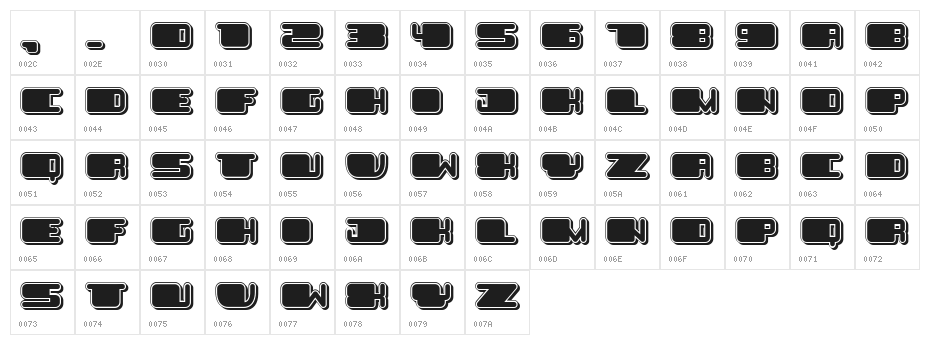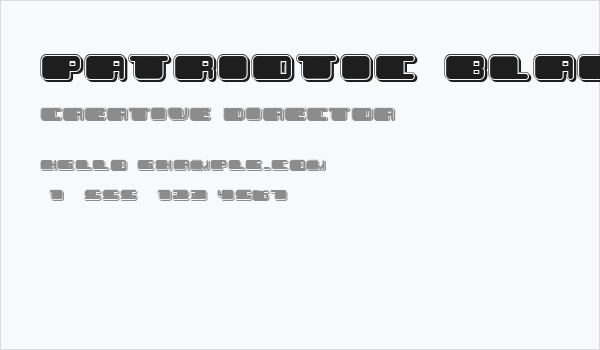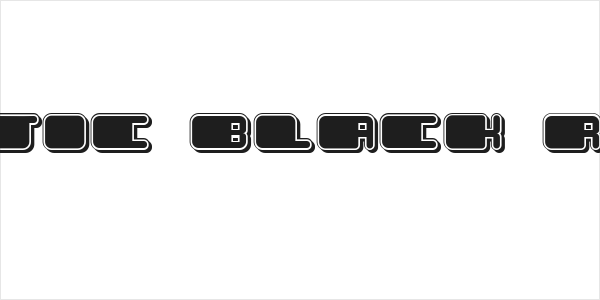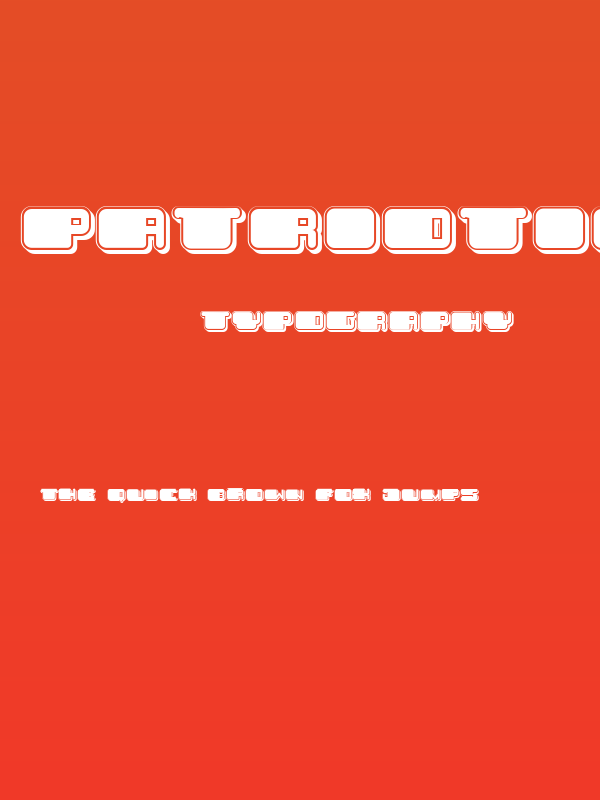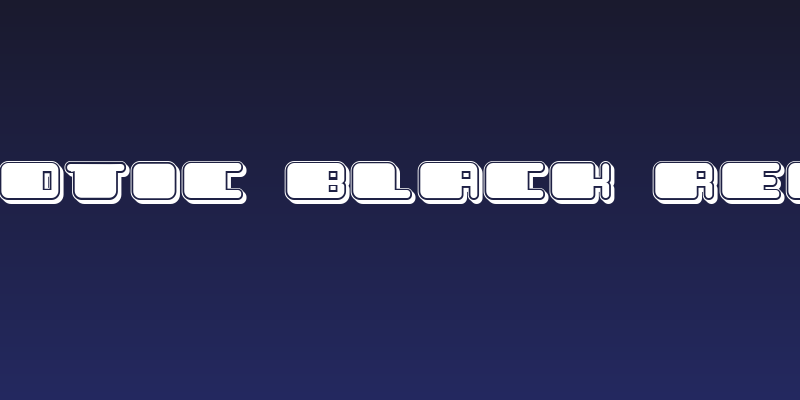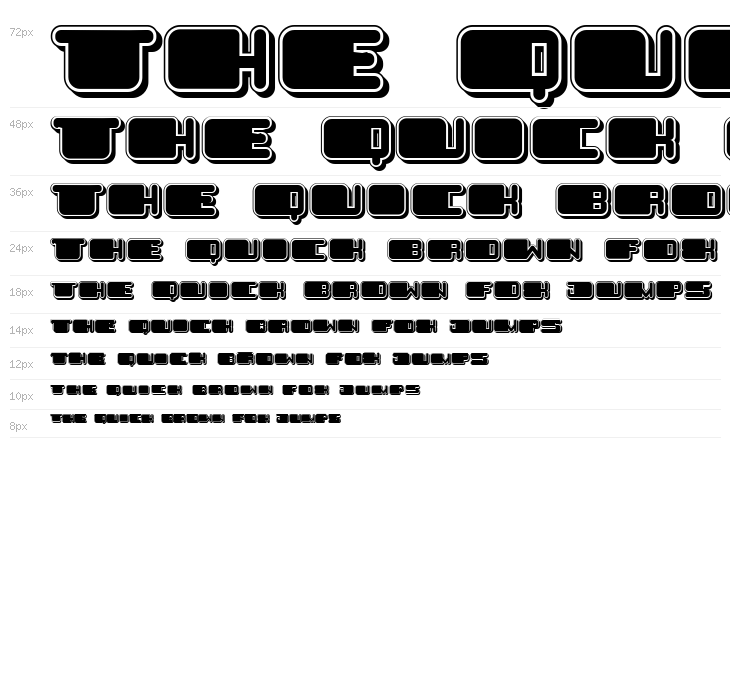
Patriotic Black Regular Font
Patriotic Black Regular Description
This font features a bold, geometric design with a strong presence. Each character is enclosed within a thick outline, creating a striking contrast between the inner and outer shapes. The letters are uniform in width, giving a monospaced appearance, while the rounded edges soften the overall look. The font's style is modern and futuristic, making it suitable for projects that require a bold statement. The numbers and special characters maintain the same design consistency, ensuring a cohesive look across all text elements.
| Proposed Projects | Ideal for branding, posters, headlines, and any design that requires a strong visual impact. |